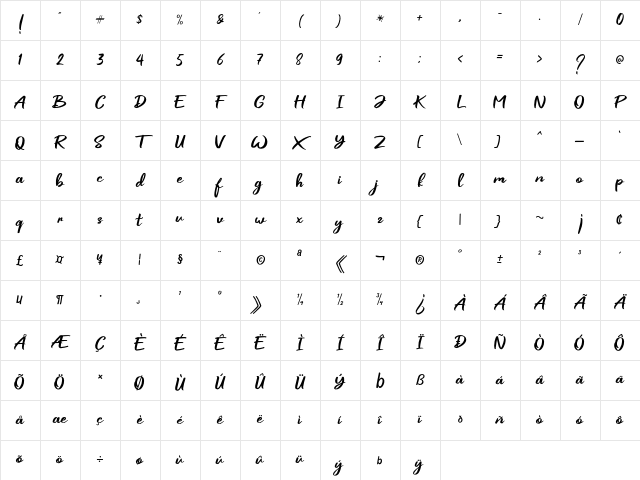
Complete Chocolate Story FreePersonalUse Script glyph index. Displaying only characters natively supported by Chocolate Story FreePersonalUse Script font.
Chocolate Story FreePersonalUse flows with the natural rhythm of handwritten lettering, making it ideal for designs that call for warmth and personal expression.
Font Pairing: Combine Chocolate Story FreePersonalUse with a simple geometric sans for maximum contrast - the tension between flowing curves and clean structure is a classic typographic pairing.
Pro Tip: Use Chocolate Story FreePersonalUse for short runs of text - names, titles, or taglines. Extended body copy in script faces tires the eye quickly.